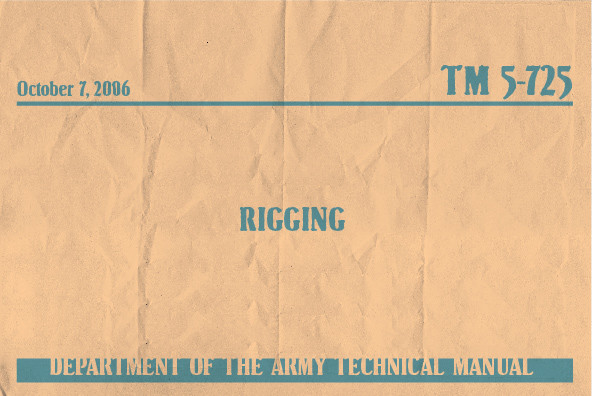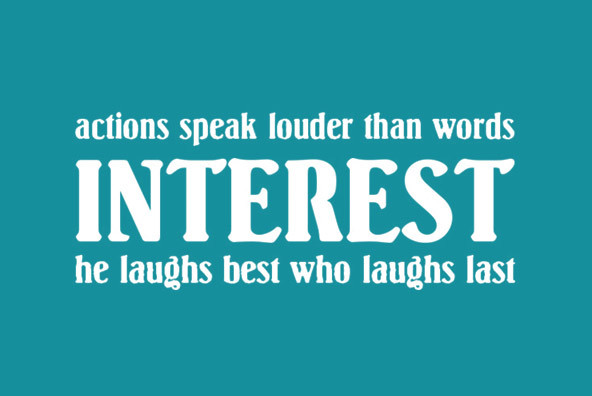
Designed by Bob McGrath in 1978, Springfield is a decorative serif release by URW. Contains language support for West, East, Turkish, Baltic, and Romanian.